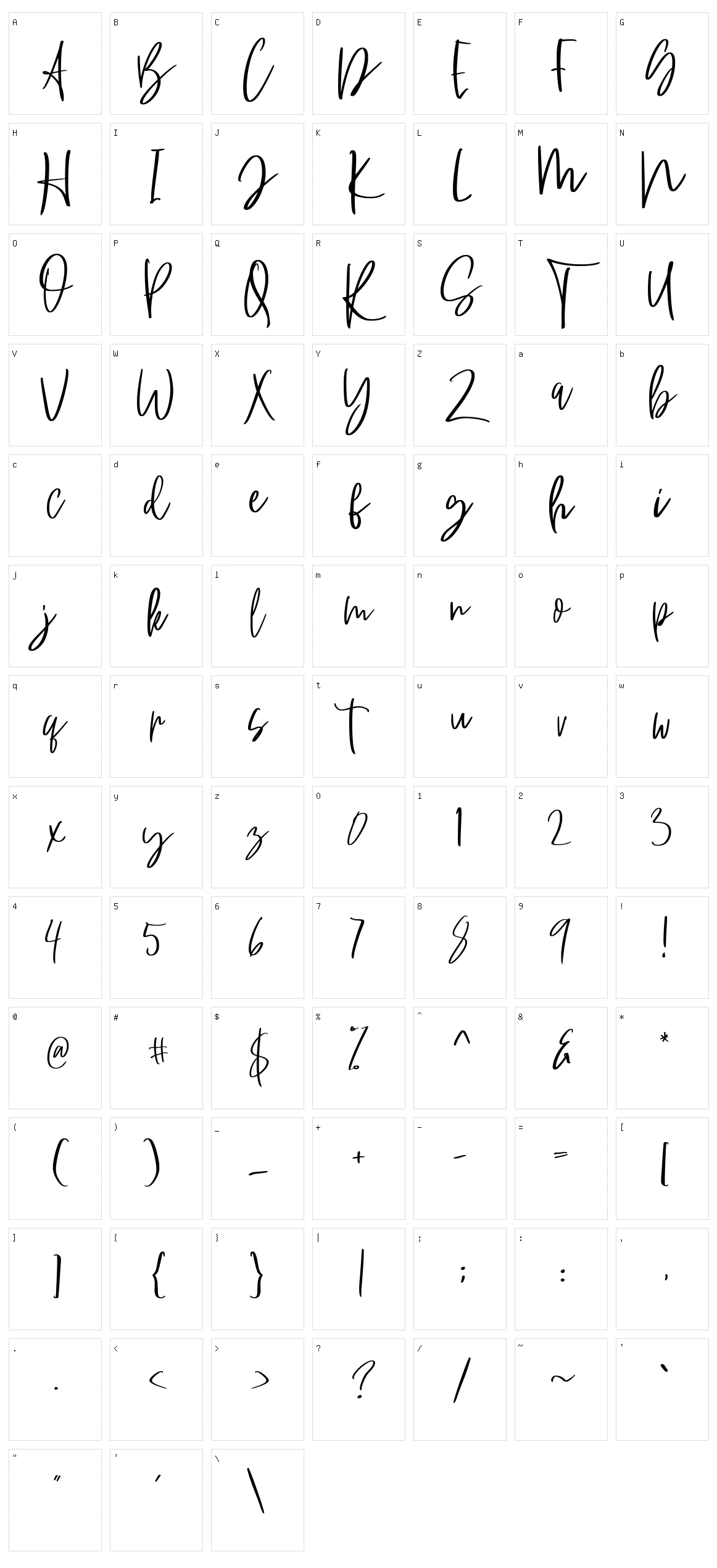
The free font Southeast is carefully designed by Analogous Studio, showcasing a thoughtful balance of creativity and usability and falls under the Script font style. When you download the ZIP file, it contains only 32.89 KB of font files, making it lightweight and quick to download. Please review the license details below to understand permitted usage and distribution rights. If license information is not available, we recommend using this font for personal projects only or contacting the author directly for commercial usage permissions.